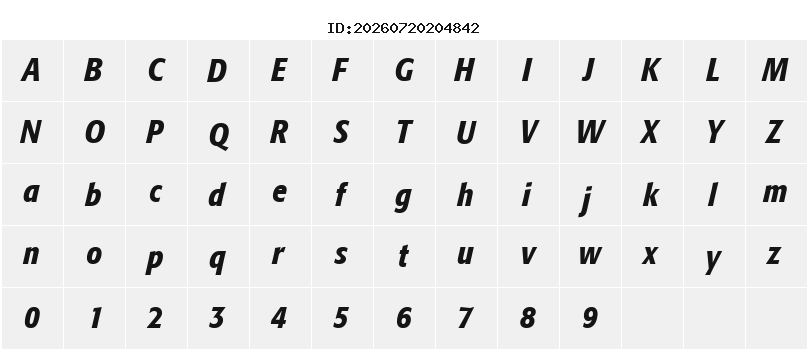
• Font Name: Formata
• Full Font Name: Formata Medium Condensed Italic
• Manufacturer: Adobe Systems Incorporated
Formata.ttf is a modern, elegant sans-serif font designed for ultimate readability and visual harmony. Perfect for branding, headlines, web design, and print materials.